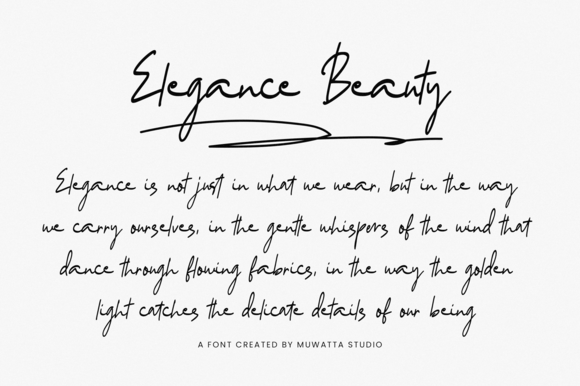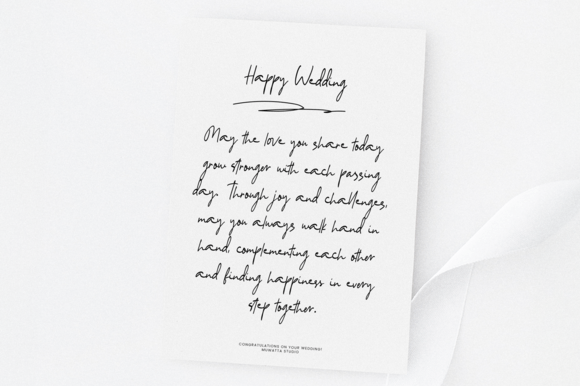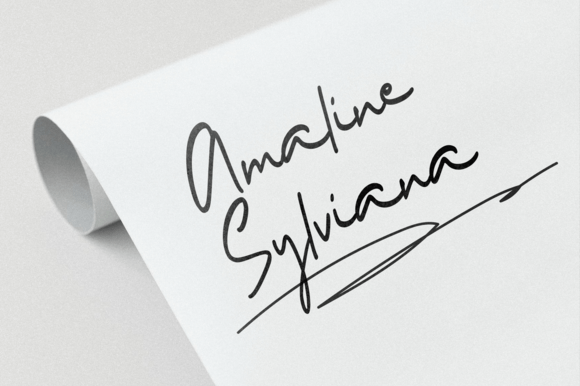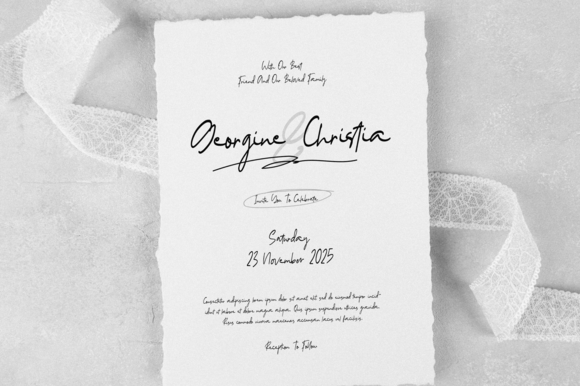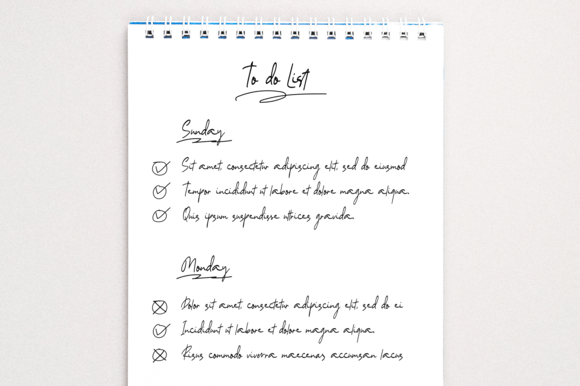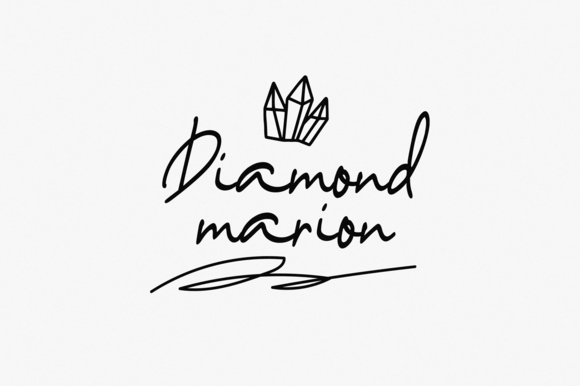
Discover the Exquisite Elegance of Clubstone Font
In the world of typography, few fonts manage to strike a balance between artistry and innovation. Clubstone Font is one such exceptional creation that embodies the perfect fusion of elegance, playfulness, and sophistication. This handcrafted font series is designed to add an intimate charm to your design projects, making them stand out with an enticing and whimsical spin.
The Art of Clubstone Font
Clubstone Font is more than just a typographic creation; it’s an experience. With its roots in artistry and innovation, this font series brings a unique personality to the table. Each letter is meticulously crafted to exude a sense of elegance and playfulness, making it an ideal choice for designers and crafters looking to infuse their projects with a touch of sophistication.
A Perfect Blend of Whimsy and Elegance
What sets Clubstone Font apart is its ability to strike a perfect balance between whimsy and elegance. This font series understands the importance of personality in design and offers a distinctive charm that can elevate any project. Whether you’re working on a branding exercise, a creative campaign, or a personal project, Clubstone Font promises to add that extra oomph needed to make your design stand out.
Clubstone Font is specifically designed for individuals who desire to bring a recognizable personality to their creative projects. If you’re a designer or crafter looking for a font that can add a touch of intimacy and playfulness to your work, Clubstone Font is the perfect choice. Its versatility makes it suitable for a wide range of projects, from luxury branding to personal crafts.
Key Features of Clubstone Font
- Handcrafted with Love: Each letter in Clubstone Font is handcrafted, ensuring a level of detail and uniqueness that’s hard to find in standard fonts.
- Perfect for Creative Projects: Whether you’re working on a digital project or a physical craft, Clubstone Font can add that special touch needed to make your work memorable.
- Timeless Elegance: Despite its modern appeal, Clubstone Font carries a timeless elegance that won’t go out of style anytime soon.
- Whimsical yet Sophisticated: This font series manages to be both playful and sophisticated, making it versatile for various design needs.
- Pair it with Neutrals: Clubstone Font’s distinctive charm can be complemented well with neutral backgrounds or simpler fonts, allowing it to be the focal point.
- Experiment with Colors: Don’t be afraid to play with colors. Clubstone Font can look stunning in bold colors, adding an extra layer of personality to your designs.
- Mix and Match: For added creativity, try mixing Clubstone Font with other fonts to create a unique typographic combination.
| Font Name | Clubstone Font |
| Author | Muwatta Studio |
Clubstone Font is a remarkable addition to the world of typography, offering a blend of artistry, innovation, and elegance. Its handcrafted nature, combined with its whimsical yet sophisticated appeal, makes it an ideal choice for designers and crafters looking to add a personal touch to their projects. With Clubstone Font, you can ensure your designs stand out, exuding a timeless elegance that’s sure to captivate your audience.
So, why settle for ordinary when you can immerse yourself in the exquisite elegance of Clubstone Font? Dive into the world of typographic excellence and let Clubstone Font be the voice that brings your creative visions to life.